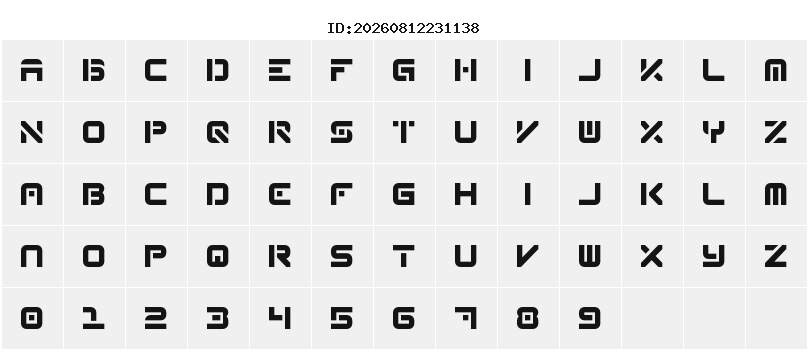
Reqruit Mk 2 Preview
• Font Name: Reqruit Mk 2
• Full Font Name: Reqruit Mk 2
About Reqruit Mk 2.otf
Reqruit Mk 2.otf is a modern, elegant sans-serif font designed for ultimate readability and visual harmony. Perfect for branding, headlines, web design, and print materials.